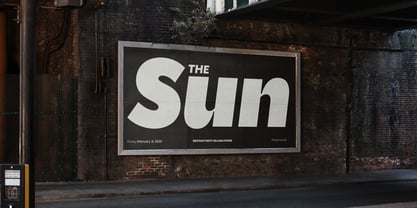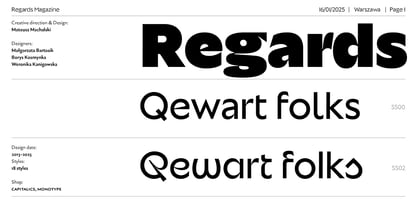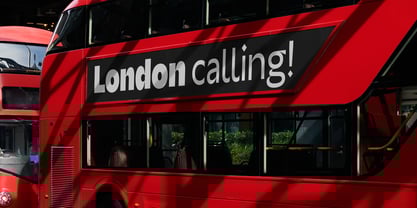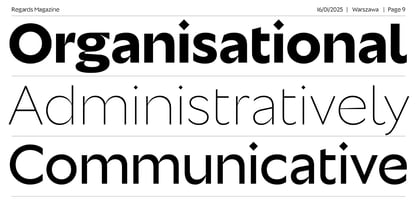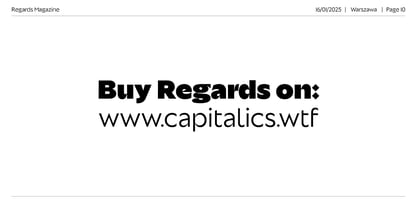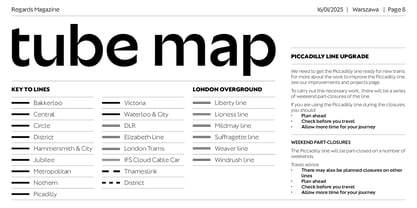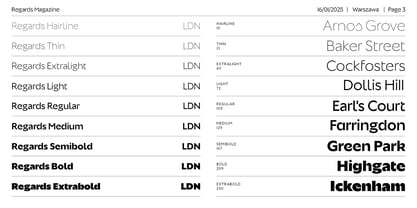
Regards
by Machalski
The Regards Font Family was designed by Mateusz Machalski and published by Machalski. Regards contains 19 styles and family package options. More about this family
Sometimes typefaces start to mature and develop with us. In 2013, on my return from London, having been hugely impressed by the work of Edward Johnston and Eric Gill, I designed the typeface Picadilly – which was to be a kind of postcard with an afterimage record. Pretty soon some things started to bother me about it, a version appeared, new, Neue, next, 2.0.... Over these 10 years I have often returned to the form of letters we know so well from the London Underground and decided to explore it again. This time the changes have gone so far that even the name has also changed.... Regards is a kind of homage to the aesthetics of the streets of London, in which the works of the greatest masters of typography are interwoven alongside neo-Gothic architecture or Brutalist insets. The whole family has a sharp character with humanistic detail – and is accompanied by a many alternative versions of the each glyph allowing for visual experimentation. Under the creative direction of Mateusz Machalski also participated in the project: Małgorzata Bartosik, Weronika Kanigowska, Borys Kosmynka.
Designers: Mateusz Machalski
Foundry: Machalski